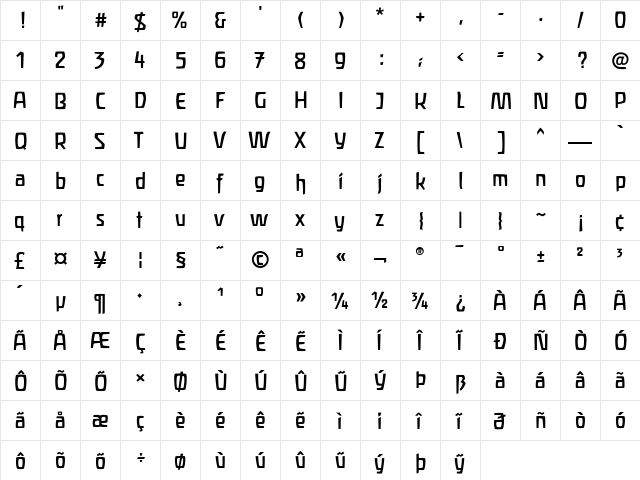
Liant Medium
Design Context for Liant Typeface
Liant is a composed and adaptable typeface that performs quietly and consistently across a wide range of design contexts.